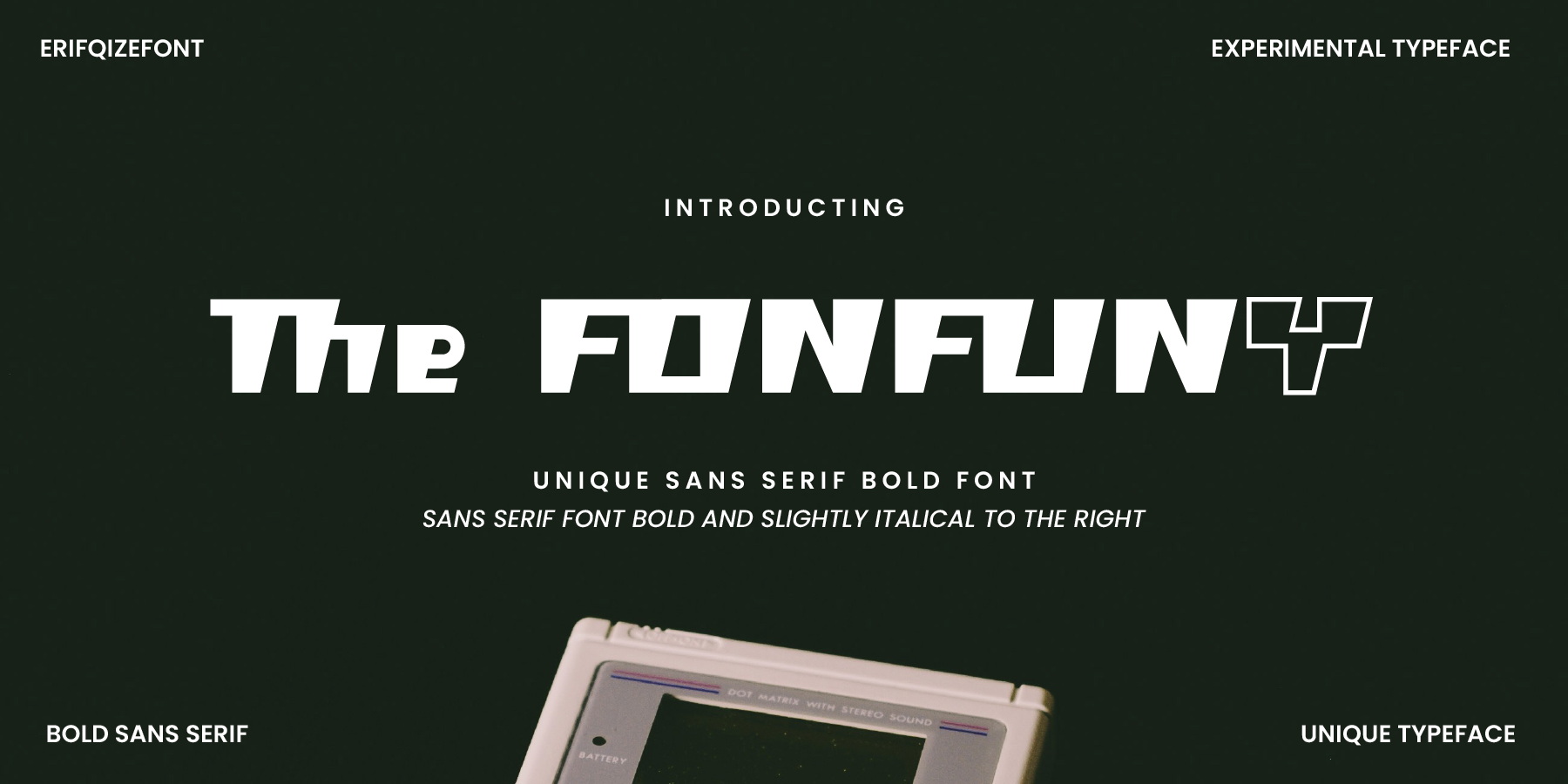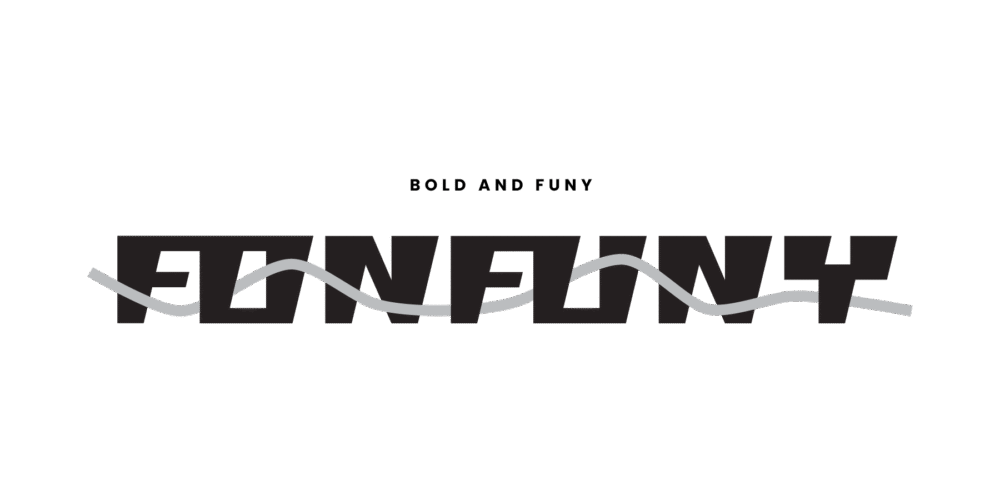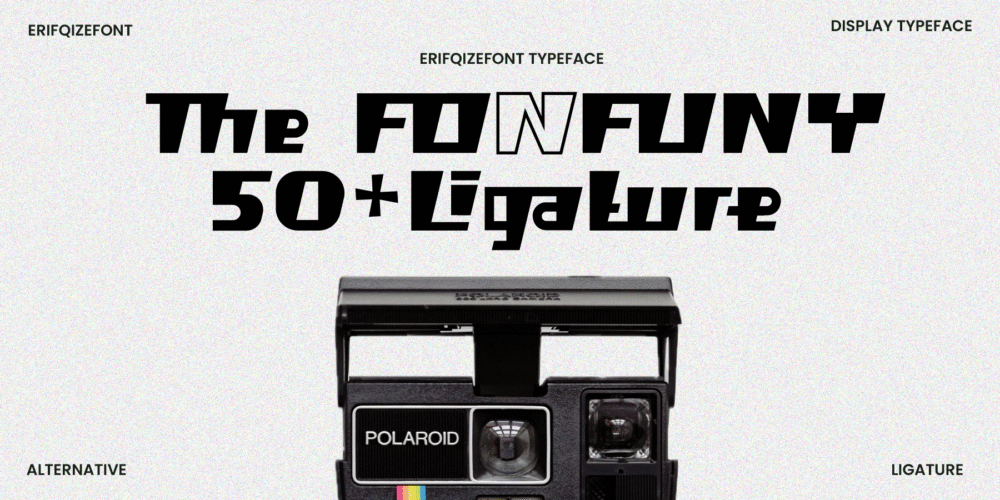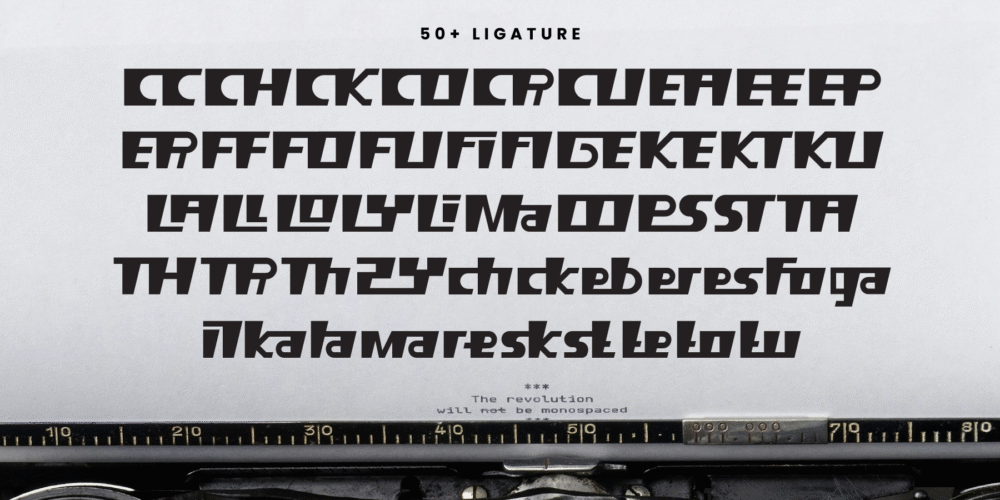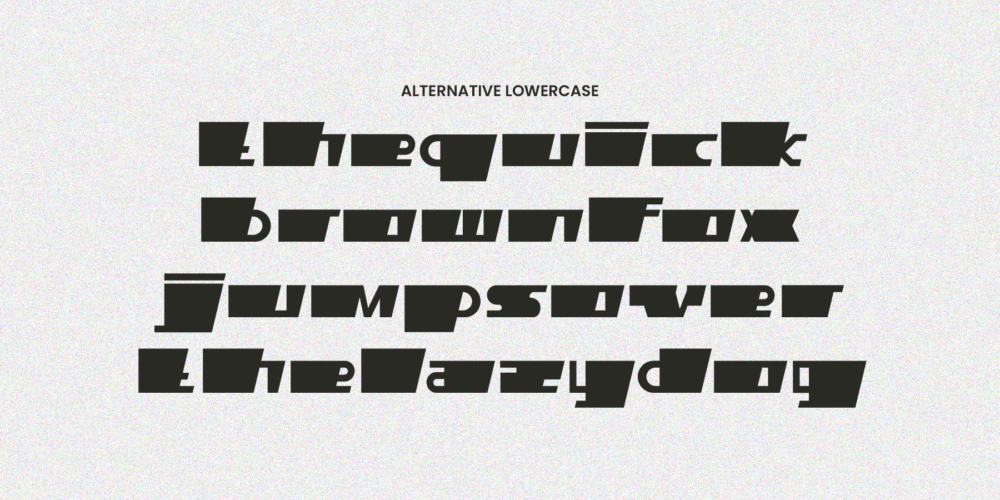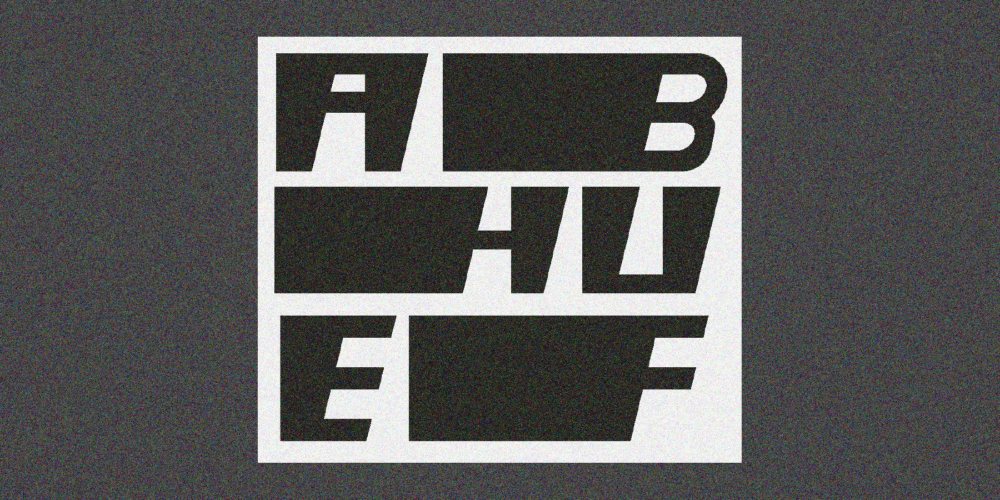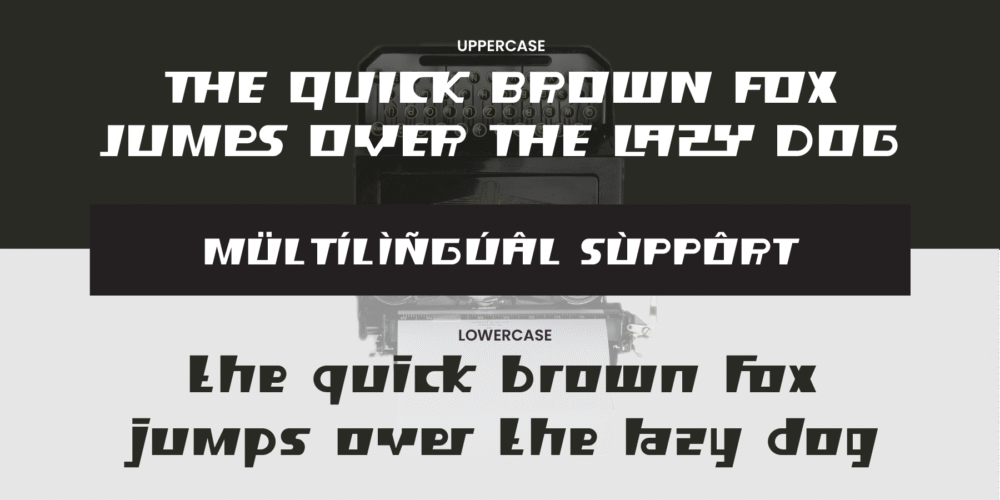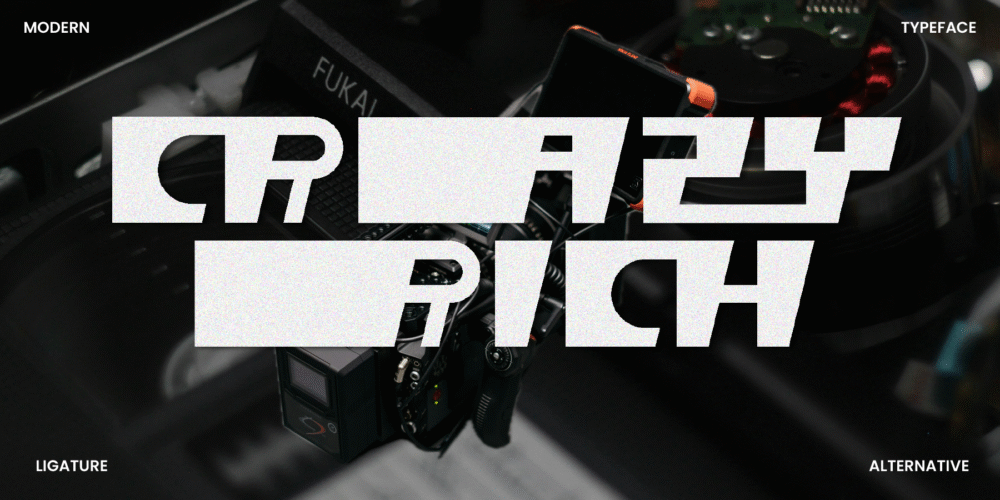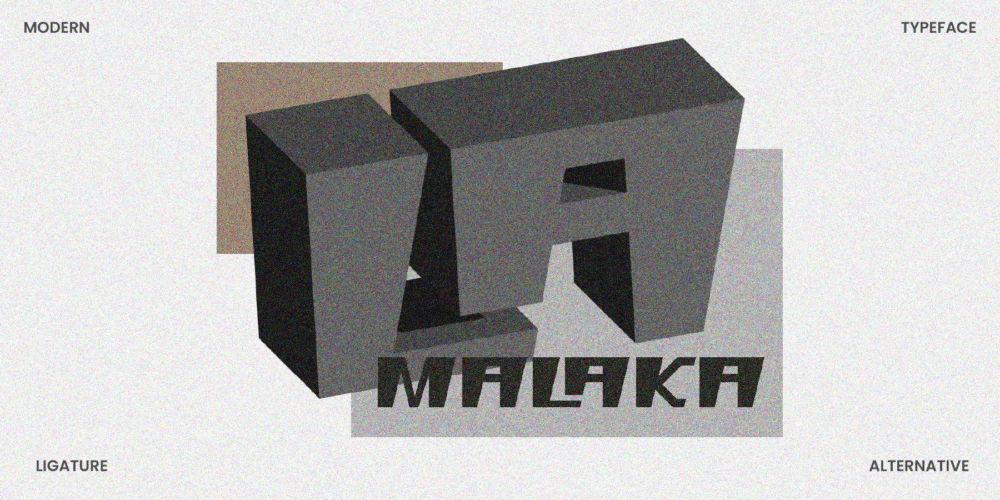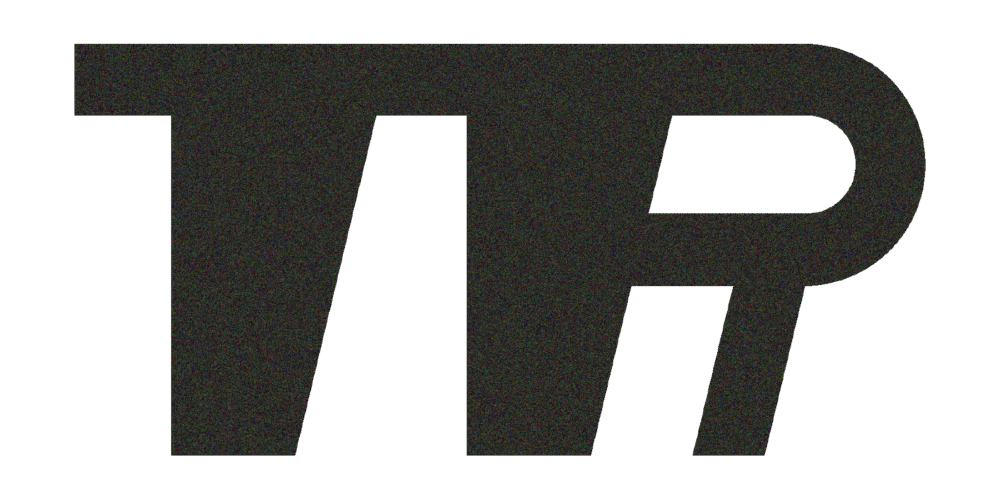
Erifqizefont is a bold sans-serif typeface with a unique, modern twist. Designed with a subtle rightward italic slant, it brings a dynamic, energetic feel to any project. Its strong personality is balanced with excellent legibility, making it both powerful and versatile.
Featuring over 50 ligatures and alternates, Erifqizefont offers creative flexibility for standout typography. Both its uppercase and lowercase letters are meticulously crafted to maintain a bold, assertive presence while ensuring readability across various applications.
Perfect for branding, headlines, posters, and any project that demands a commanding, impactful style.
Unleash bold creativity with the dynamic strength of Erifqizefont.